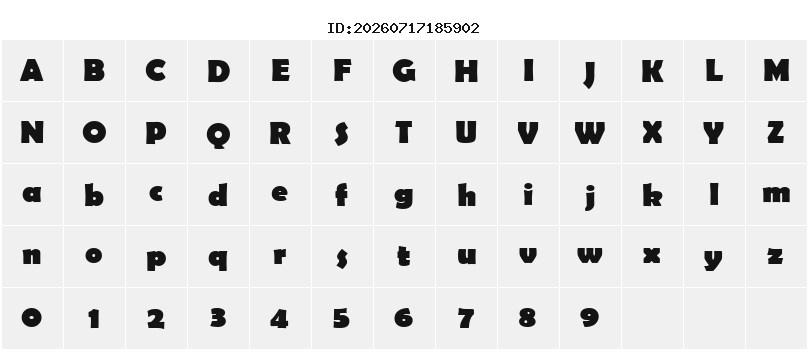
Berlin Sans FB Preview
• Font Name: Berlin Sans FB
• Font Style: Gras
• Font ID: FB Berlin Sans FB Bold
• Full Font Name: Berlin Sans FB Gras
• PostScript Name: BerlinSansFB-Bold
• Designer: David Berlow
• Manufacturer: The Font Bureau, Inc.
• Description: Berlin Sans is based on a brilliant alphabet from the late twenties, the first sans that Lucian Bernhard ever designed, imaginative and little-known. Assisted by Matthew Butterick, David Berlow expanded the single font into a series of four weights, all four complete with Expert character sets, plus one dingbat font.
Berlin Sans FB.ttf is a modern, elegant sans-serif font designed for ultimate readability and visual harmony. Perfect for branding, headlines, web design, and print materials.